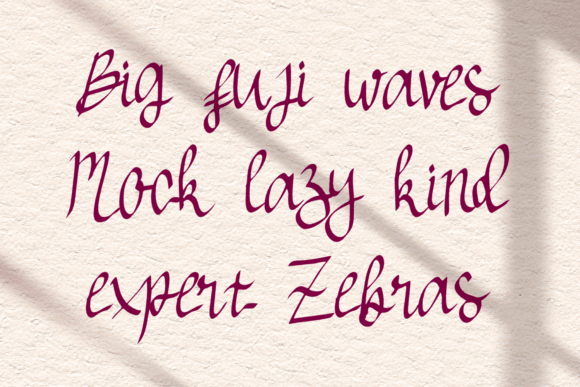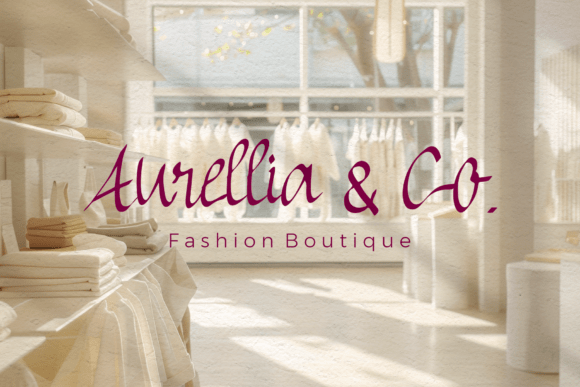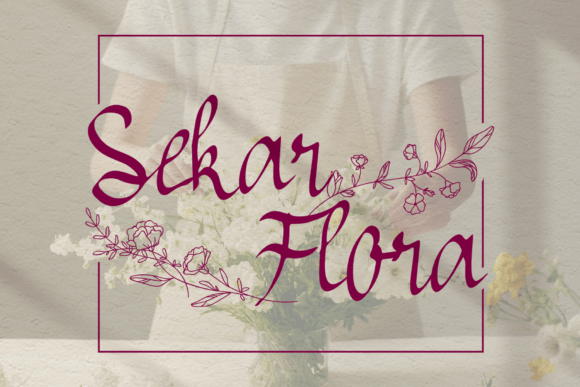
Introduction to Schaluna Font
Scaluna is a tender, engaging script typeface that infuses warmth and individuality into your imaginative endeavors.
Its fluid, rhythmic letterforms and delicate curves make Scaluna a versatile choice for a myriad of applications such as wedding invitations, branding and logo creation, social media graphics, product packaging, greeting cards, and designs with a feminine or lifestyle orientation Meticulously crafted to achieve a harmonious and authentic handwritten ambiance, Scaluna supports both uppercase and lowercase letters, accommodates multilingual characters, and incorporates essential punctuation.
Key Features of Schaluna Font